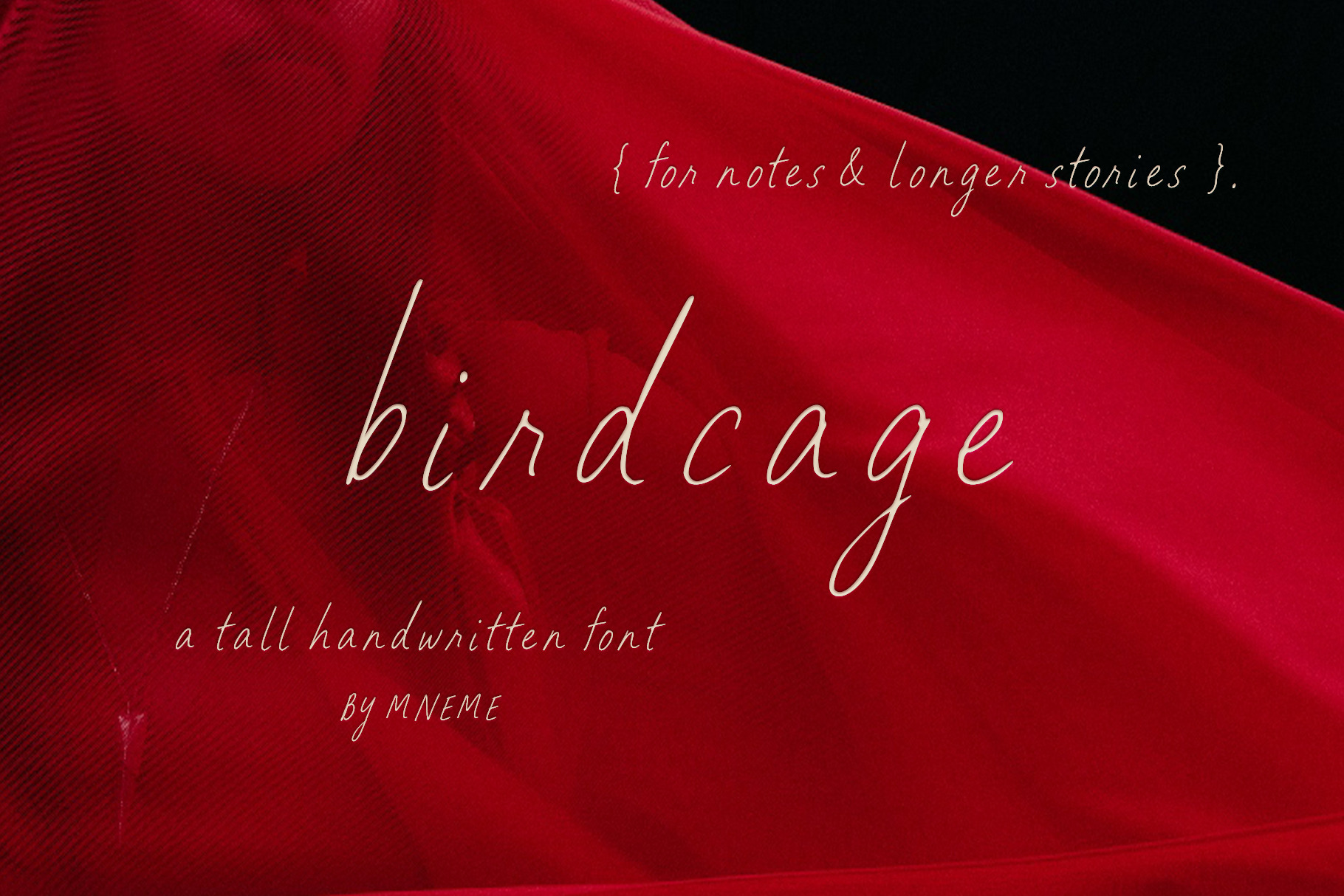
Birdcage Handwritten Font
Birdcage is a tall, narrow handwritten font with an elegant but slightly uneasy character. Its irregular rhythm and delicate lines give the impression of personal handwriting caught somewhere between a private note and an editorial headline.
Created for fashion layouts, book covers, packaging, invitations, posters, album artwork and distinctive branding. Birdcage works especially well at larger sizes, where its elongated forms and subtle imperfections can remain visible.
Birdcage is ideal for projects that need handwriting without sweetness: restrained, expressive and just a little severe.